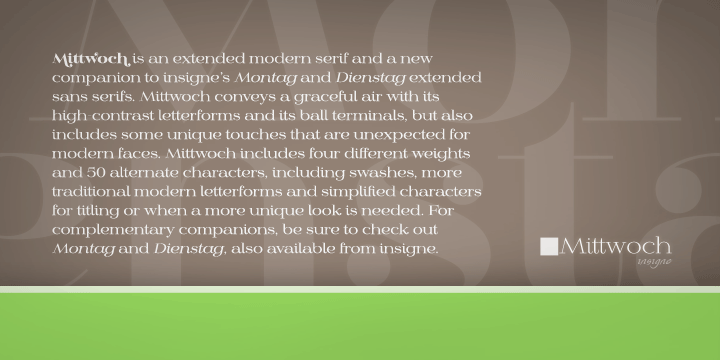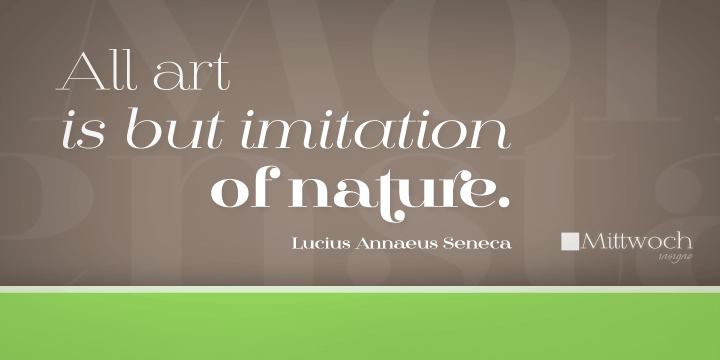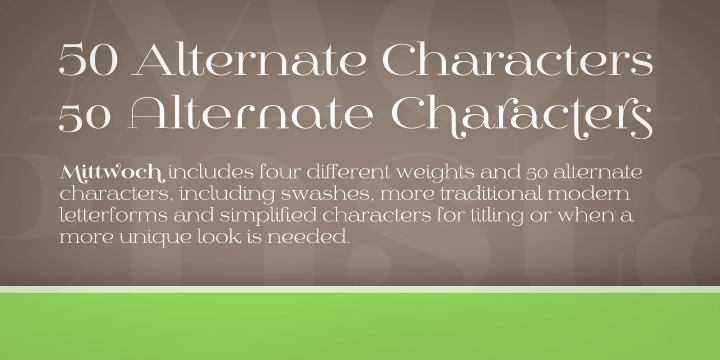
Mittwoch
Font Family by Insigne
Mittwoch is an extended modern serif and a new companion to insigne's Montag and Dienstag extended sans serifs.
Mittwoch conveys a graceful air with its high-contrast letterforms and its ball terminals, but also includes some unique touches that are unexpected for modern faces. Mittwoch includes four different weights and 50 alternate characters, including swashes, more traditional modern letterforms and simplified characters for titling or when a more unique look is needed.